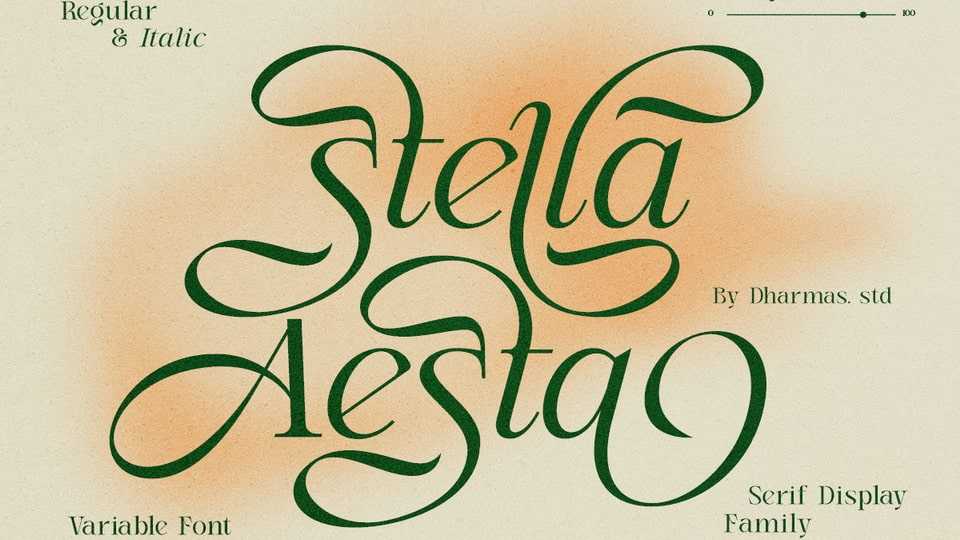
Download Stella Aesta font, an elegant serif typeface featuring beautiful swashes that resemble butterfly wings, perfect for designs that need a timeless and enchanting feel.